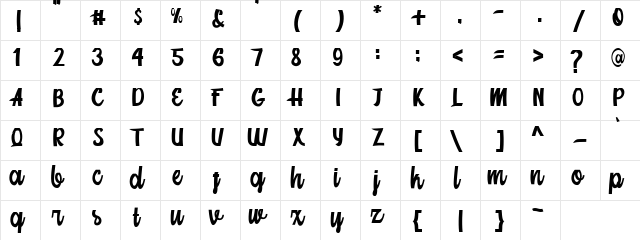
Mainstream Script Medium
Design Context for Mainstream Script Typeface
Mainstream Script flows with the natural rhythm of handwritten lettering, making it ideal for designs that call for warmth and personal expression.
Font Pairing: Combine Mainstream Script with a simple geometric sans for maximum contrast — the tension between flowing curves and clean structure is a classic typographic pairing.
Pro Tip: Pair Mainstream Script with a clean sans-serif for supporting text. The contrast between fluid script and geometric structure creates an elegant typographic hierarchy.